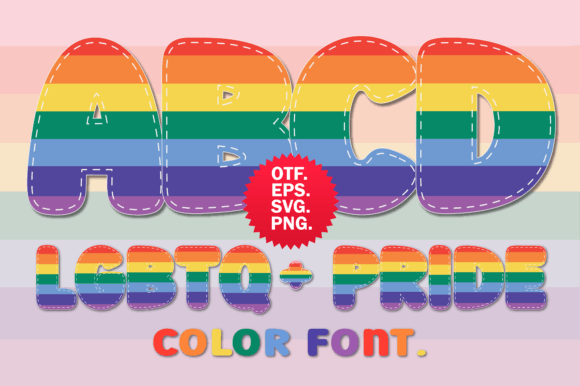
Introducing the vibrant and captivating "Pride LGBTQ+" font, a true celebration of colors and inclusivity. Created by NN-Font Design, this font brings the magical essence of the LGBTQ+ flag to life, transforming it into letters and symbols that dance on paper.
With bold strokes and curves filled with joy, each character in this font is a little celebration in itself. Shades of red, orange, yellow, green, blue, and purple harmoniously blend together, creating a parade of happiness with every word you type.
But this font is more than just a beautiful design. It is a reflection of love, acceptance, and inclusivity. When you use the "Pride LGBTQ+" font, your words become a powerful statement of support for the LGBTQ+ community. It's like typing with a smile on your face, spreading positivity and love with every stroke.
In a world that needs more acceptance and love, let your designs and words speak volumes with the "Pride LGBTQ+" font. Embrace the magic of colors, show your support, and make a powerful impact.